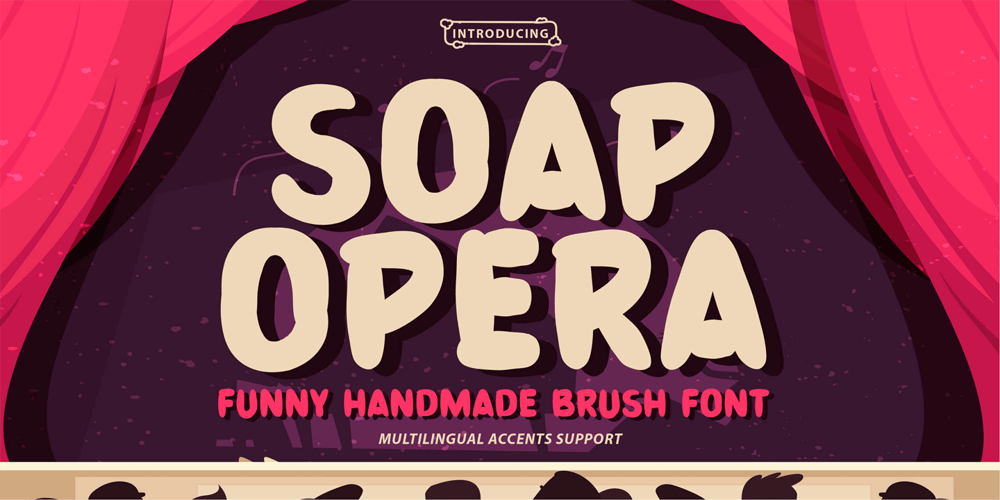
Soap Opera
Soap Opera font
Soap Opera Font Family was designed by Abdul Malik Wisnu, Anang Fibriyanto and published by Gassstype. Soap Opera contains 1 styles and family package options. Here comes a New font, Soap Opera is a Funny Handmade Brush Font that is written casually and quickly amazing. Letters are made with brushes on Procreate. Then crafted carefully drawn into vector format. That is why Soap Opera has Stylish and unique characteristic more natural look to your text with a more modern look to your text.